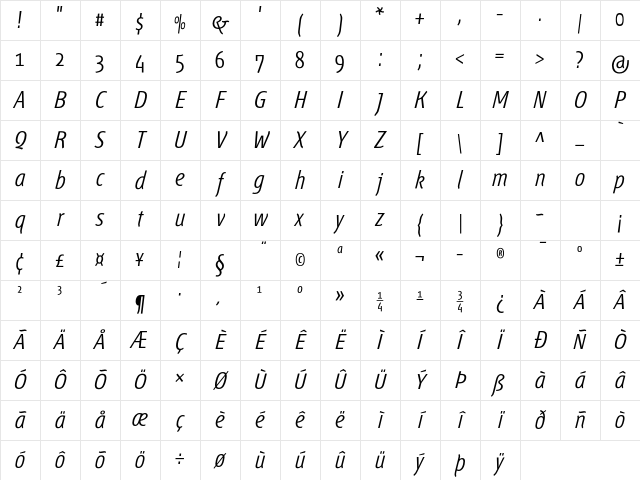
Fontana ND Aa OsF LightItalic
Design Context for Fontana ND Aa OsF
Fontana ND Aa OsF is a composed and adaptable typeface that performs quietly and consistently across a wide range of design contexts. The slanted form adds forward momentum and visual energy. Its slender proportions lend an understated elegance to any composition.